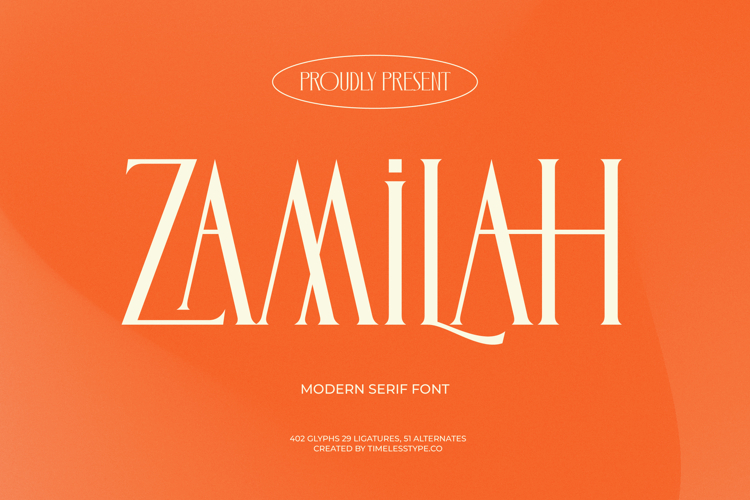
Zamilah - Modern Serif Font
Discover unparalleled typographic elegance with Font Zamilah - Modern Serif Font Serif Display. This sophisticated display serif captivates with high-contrast letterforms, sharp serifs, and graceful curves, embodying modern luxury. It perfectly blends timeless appeal with a contemporary edge, ensuring your designs instantly command attention.
Maximize your visual impact across diverse projects. Font Zamilah - Modern Serif Font Serif Display is ideal for luxury branding, high-end product packaging, prestigious editorial design, fashion magazines, and sophisticated advertising campaigns. It consistently delivers impactful headlines and distinctive logotypes, where class and refinement are essential.
Expand your global reach effortlessly. With its extensive multilingual support, Font Zamilah - Modern Serif Font Serif Display adapts seamlessly across global markets, making it incredibly versatile for international projects. A rich collection of ligatures and alternates offers unlimited customization, enabling unique typographic expressions and a consistent premium experience worldwide.
Elevate your design projects to an extraordinary level. Font Zamilah - Modern Serif Font Serif Display is an indispensable asset for discerning designers and brands aiming to convey elegance, authority, and modernity. Invest in this powerful display serif to transform your visual narratives and leave an unforgettable impression.